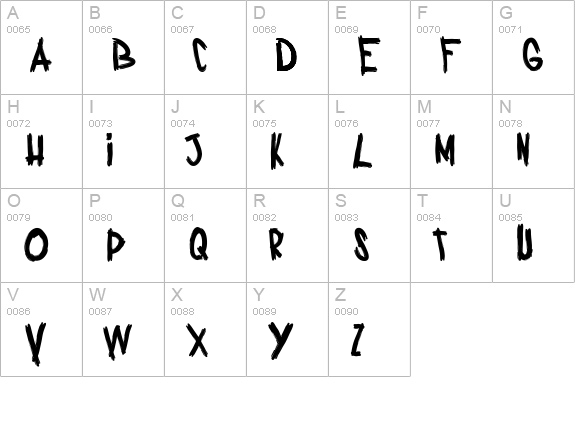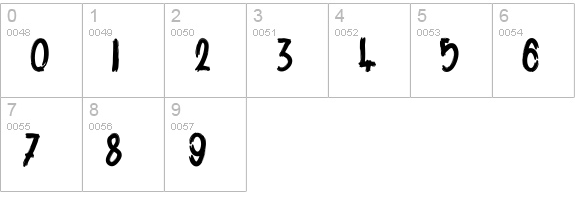
Ciao jFont | Jean Grphx Font Details
Ciao jFont | Jean Grphx font is a stylish and modern typeface that exudes sophistication and elegance. With its sleek lines and contemporary design, this font is perfect for adding a touch of class to your projects. Whether you're creating invitations, posters, or branding materials, Ciao jFont will make your text stand out with its unique flair. The best part? Ciao jFont | Jean Grphx font is completely free to download at FontsMarket.com. You can elevate your designs without breaking the bank, thanks to this high-quality font that is readily available for your creative endeavors. Don't miss out on the opportunity to enhance your projects with the beauty and versatility of Ciao jFont | Jean Grphx font. Download it now and start creating stunning visuals that will captivate your audience.